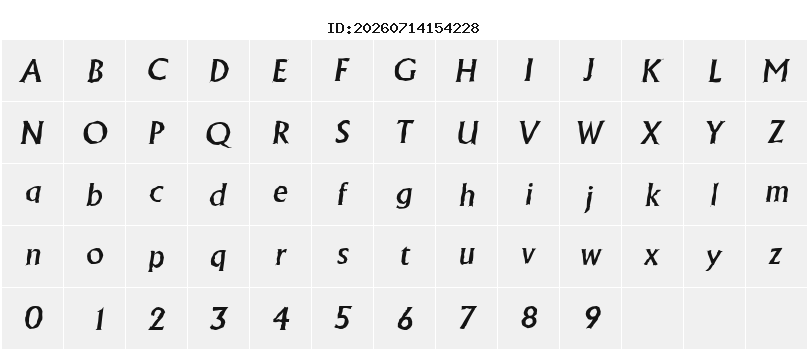
About JacobBeckerAntique-Medium.ttf
JacobBeckerAntique-Medium.ttf is a modern, elegant sans-serif font designed for ultimate readability and visual harmony. Perfect for branding, headlines, web design, and print materials.